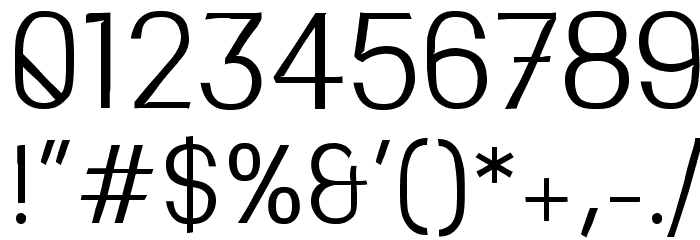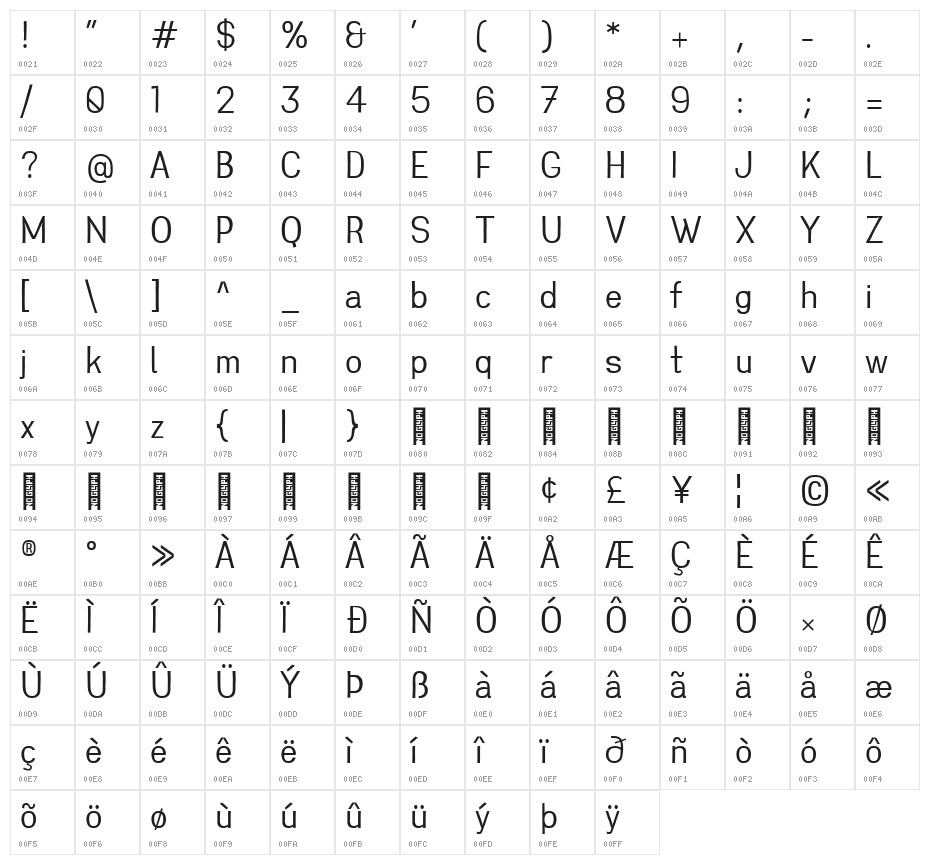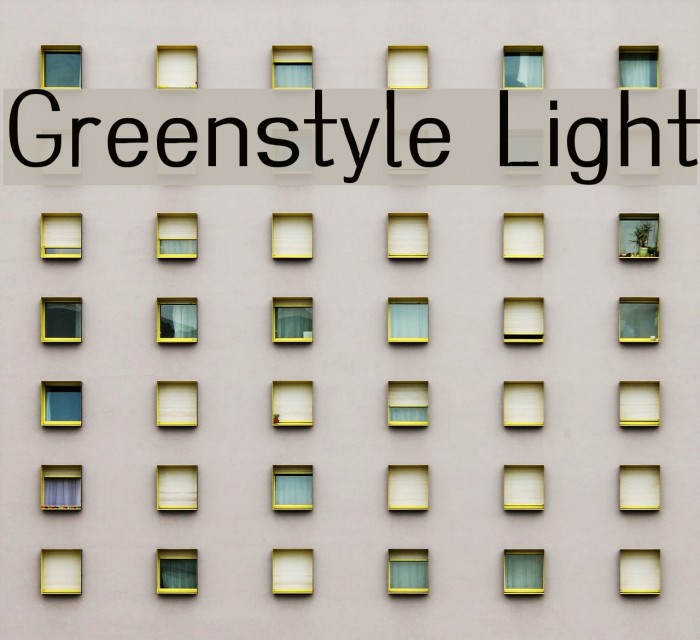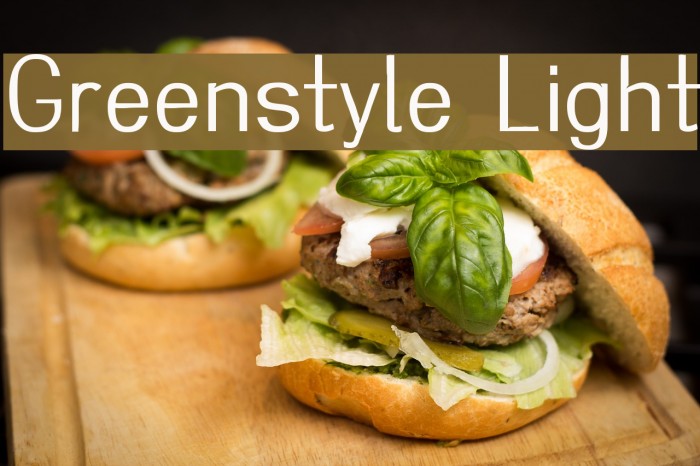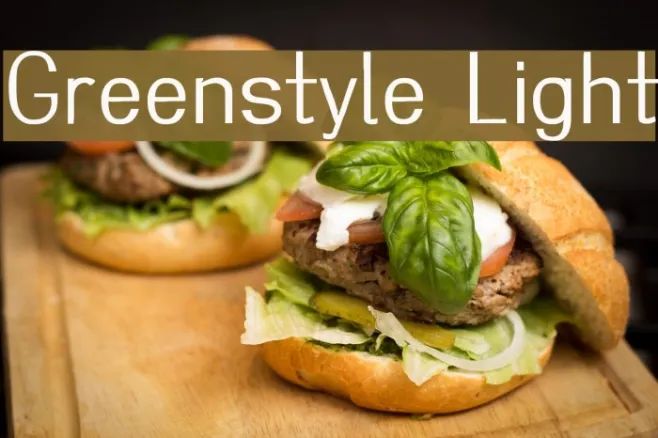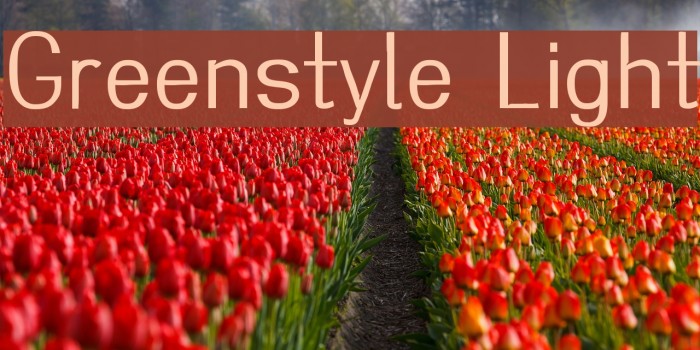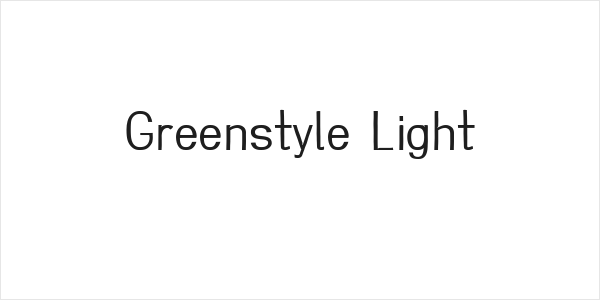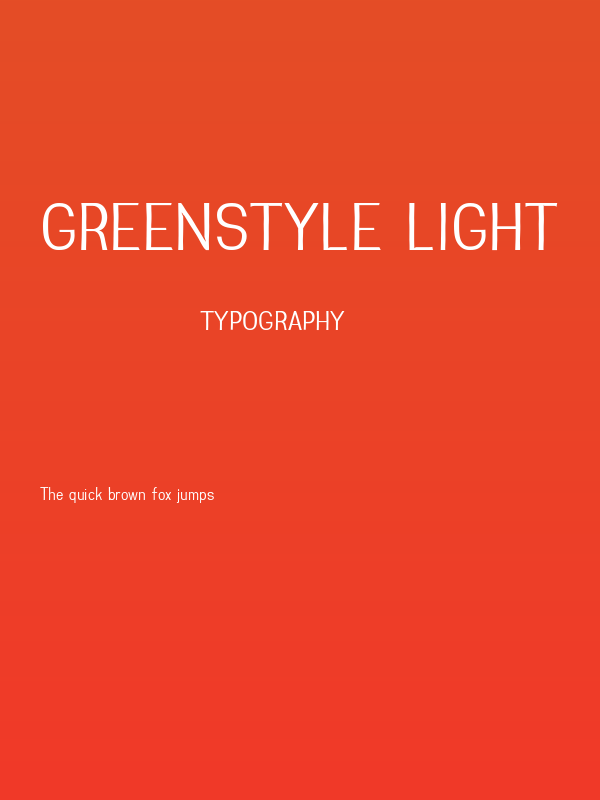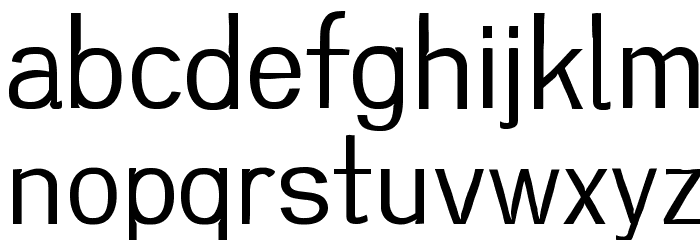
Greenstyle Light Font
Greenstyle Light Description
This font features a clean and modern sans-serif style, characterized by its light weight and minimalistic design. The characters are well-proportioned with a consistent stroke width, offering a sleek and contemporary appearance. The uppercase letters are tall and slightly condensed, while the lowercase letters maintain a balanced and open form. The numerals are clear and easy to read, making them suitable for various applications. Special characters are designed with simplicity in mind, ensuring they blend seamlessly with the overall aesthetic. The font's uniformity and clarity make it ideal for digital and print media, where readability is paramount.